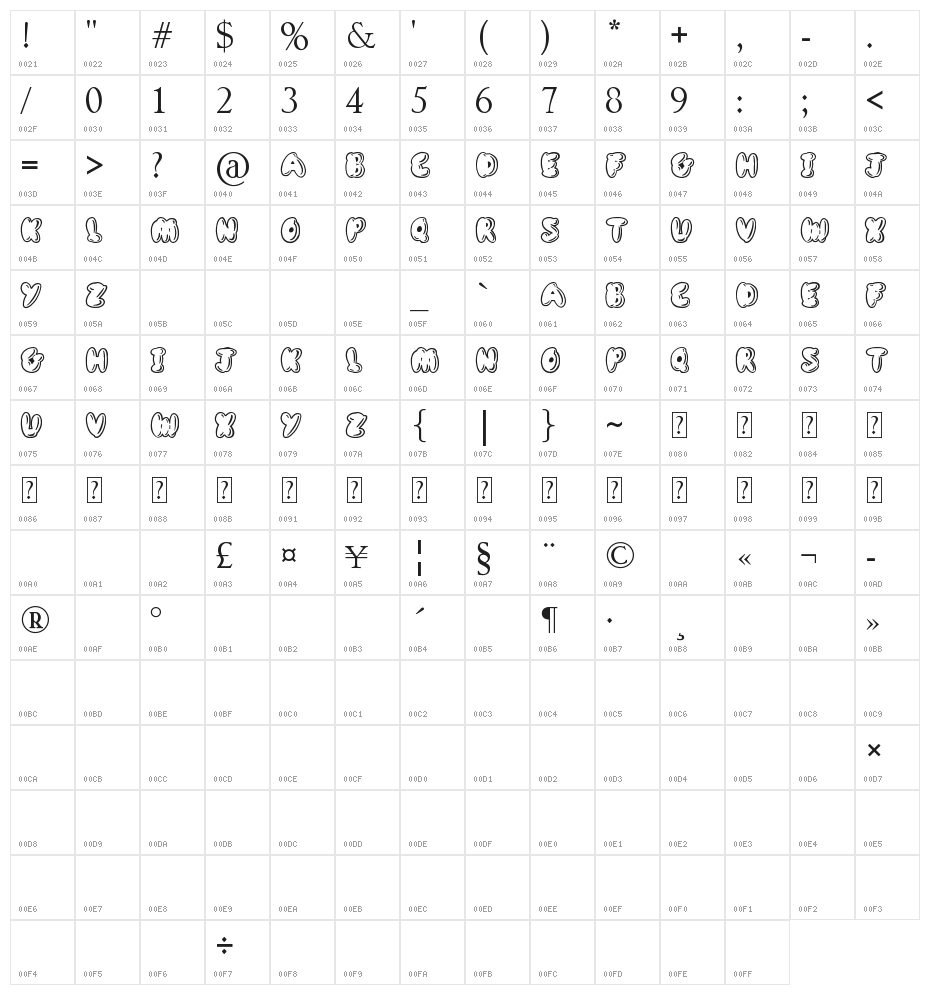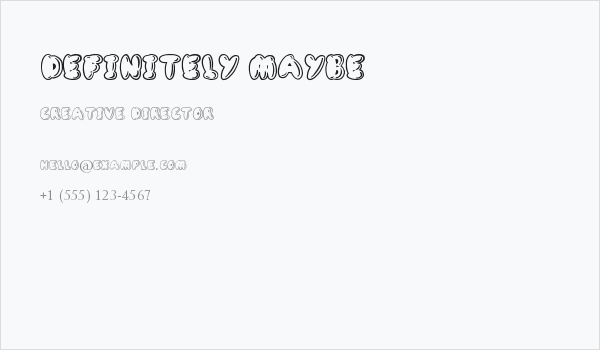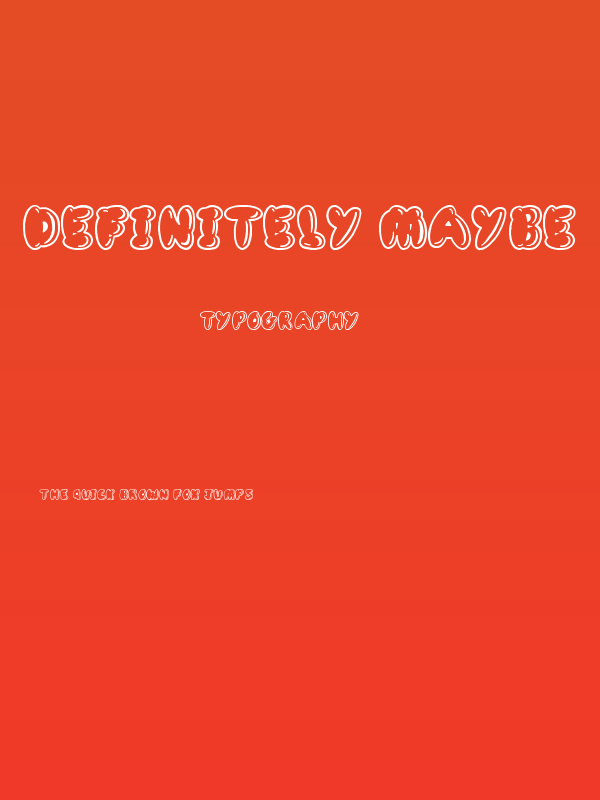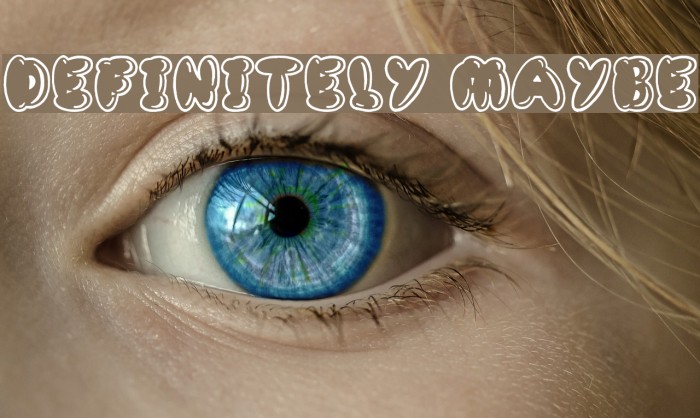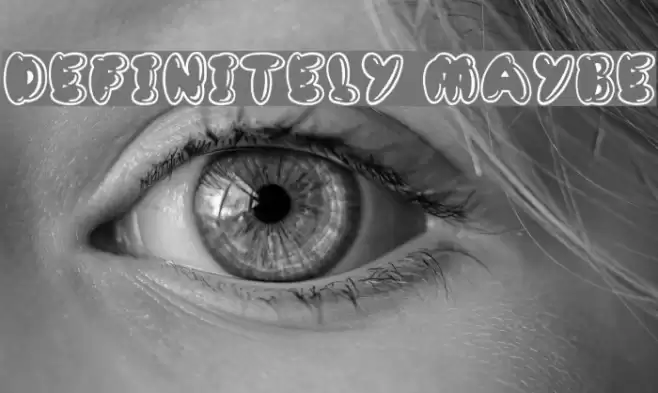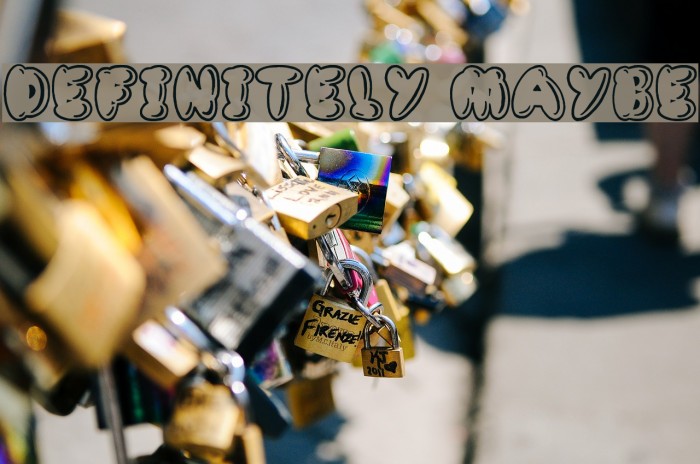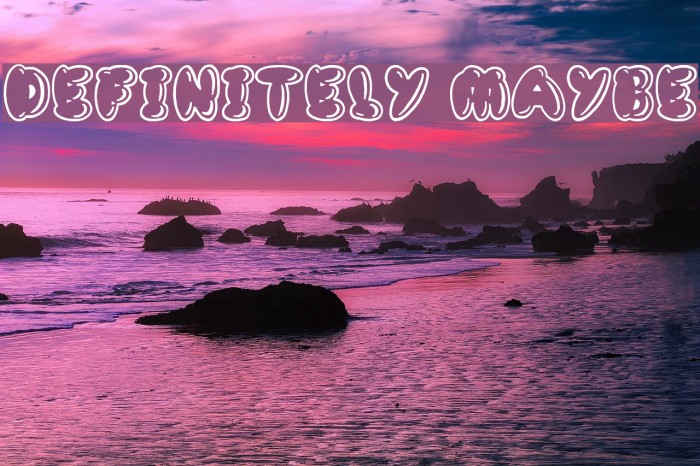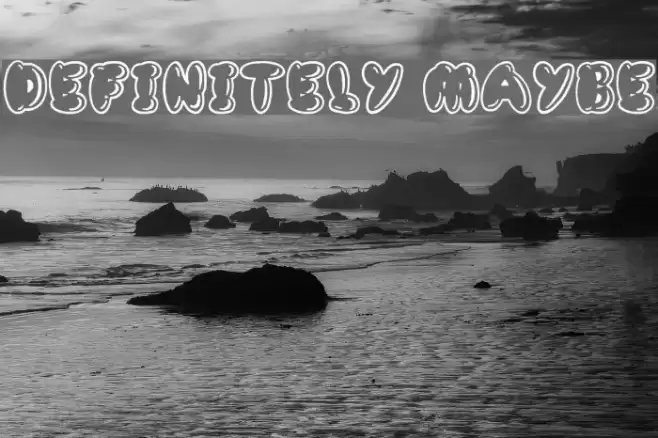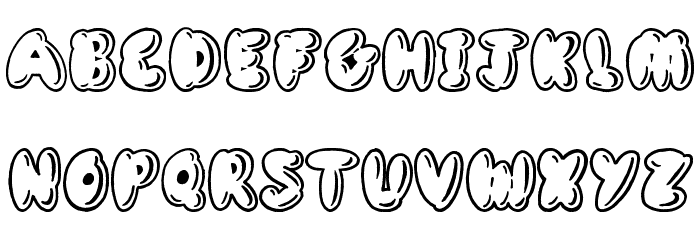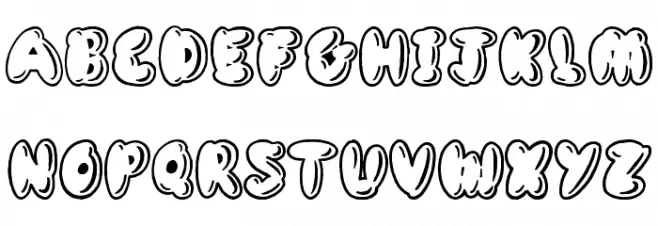
Definitely Maybe Font
| Style général | Playful, Whimsical |
| Projets proposés | Ideal for children's books, playful branding, party invitations, and creative posters. |